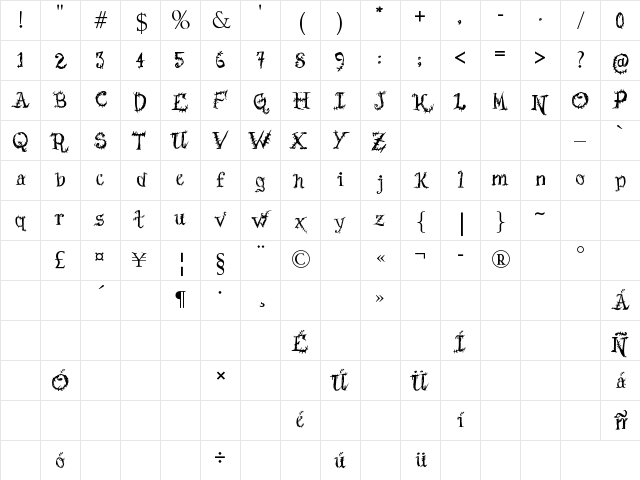
Complete Scars Before Christmas Regular glyph index. Displaying only characters natively supported by Scars Before Christmas Regular font.
Scars Before Christmas is a composed and adaptable typeface that performs quietly and consistently across a wide range of design contexts.